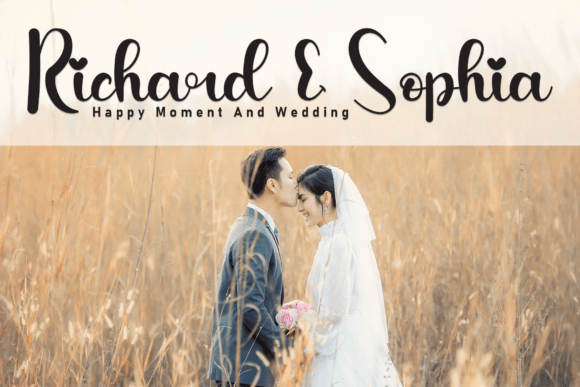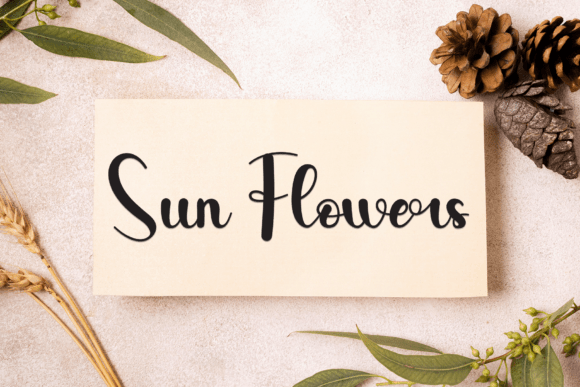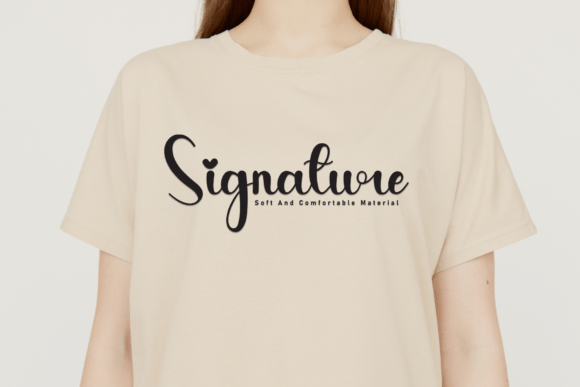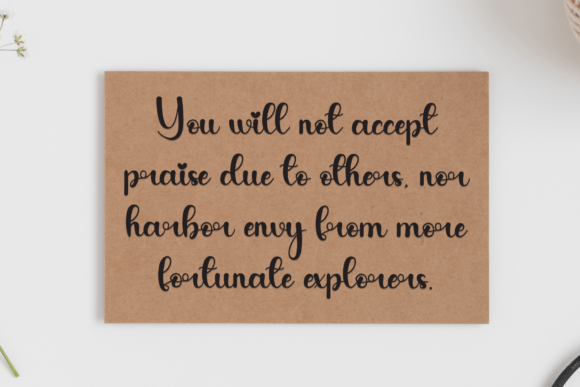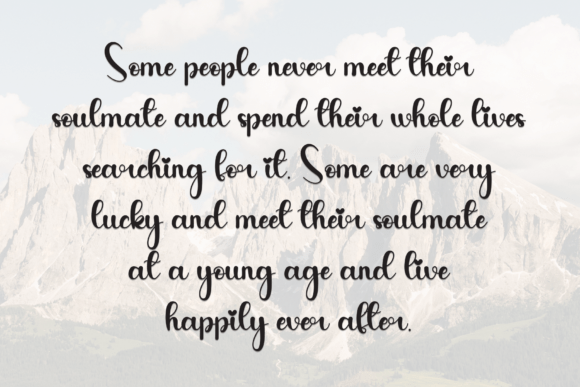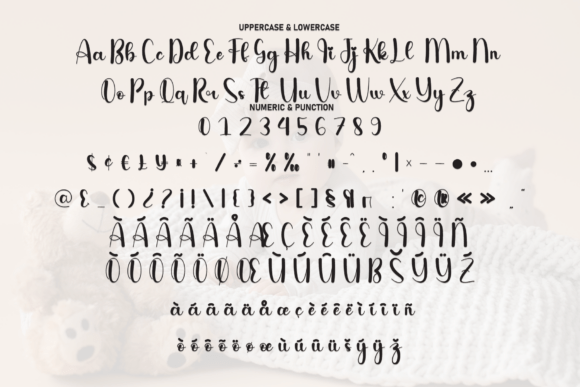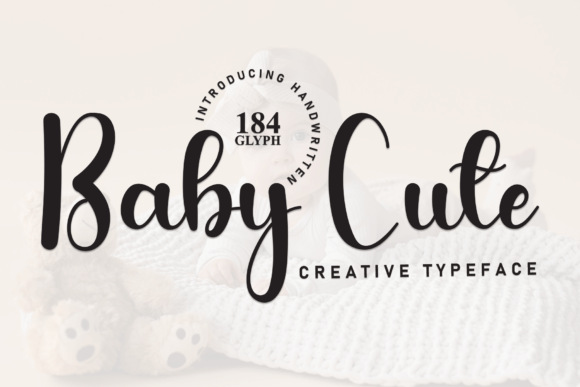
Baby Cute Font: Elevate Your Designs with Fresh Elegance and Delicate Charm
In the world of typography, few fonts capture the essence of freshness and delicacy as beautifully as the Baby Cute Font. This stylish handwritten script font is a gem for designers and crafters looking to infuse their projects with a sense of renewal and elegance. With its flowing strokes and graceful curves, Baby Cute is not just a font; it’s an expression of softness and sophistication that can transform any design into a masterpiece.
The Essence of Baby Cute Font
Baby Cute Font is characterized by its elegant and delicate appearance. It’s a handwritten script font that exudes a sense of charm and grace, making it perfect for a variety of design projects. Whether you’re creating invitations, branding materials, or seasonal designs, Baby Cute adds a personal touch that elevates your work from ordinary to extraordinary.
Key Features of Baby Cute Font
• Flowing Strokes: The font features smooth, flowing strokes that contribute to its elegant appearance.
• Graceful Curves: The curves in Baby Cute Font are meticulously designed to add a touch of sophistication and charm.
• Handwritten Script: As a handwritten script font, Baby Cute brings a personal and intimate feel to any project.
• Versatile: Its elegant and delicate nature makes it suitable for a wide range of design projects, from formal invitations to modern branding.
The versatility of Baby Cute Font makes it an excellent choice for various design projects. Here are some of the areas where this font truly shines:
Invitations
For those special occasions, Baby Cute Font can add a touch of elegance and sophistication to your invitations. Its delicate charm makes it perfect for wedding invitations, baby shower invites, and other celebratory announcements.
Branding
In branding, establishing a unique identity is crucial. Baby Cute Font can help you achieve that with its fresh and elegant look. It’s ideal for businesses that want to convey a sense of delicacy and sophistication.
Seasonal Designs
Seasonal designs require a font that can capture the essence of the season. Baby Cute Font, with its uplifting feel, is perfect for creating seasonal content that resonates with your audience.
Why Choose Baby Cute Font?
Choosing Baby Cute Font for your design projects comes with numerous benefits:
• Elegance: It adds an elegant touch to any design.
• Personal Touch: The handwritten nature of the font gives your projects a personal and intimate feel.
• Versatility: Suitable for a wide range of design projects.
• Easy to Read: Despite its elegance, Baby Cute Font remains easy to read, making it functional as well as beautiful.
How to Use Baby Cute Font Effectively
To make the most out of Baby Cute Font, consider the following tips:
• Pair with Complementary Fonts: Use Baby Cute Font in combination with simpler fonts to create contrast and hierarchy in your designs.
• Adjust Size and Color: Experiment with different sizes and colors to emphasize certain parts of your text and add depth to your design.
• Consider Line Spacing: Ensure proper line spacing to maintain readability and flow.
Baby Cute Font is a beautiful addition to any designer’s toolkit. Its fresh elegance, delicate charm, and versatility make it an excellent choice for a variety of projects. By incorporating Baby Cute Font into your designs, you’re not just choosing a font; you’re embracing a style that speaks of sophistication, elegance, and personal touch. Whether you’re designing invitations, branding materials, or seasonal content, Baby Cute Font is sure to elevate your work and make it truly memorable.